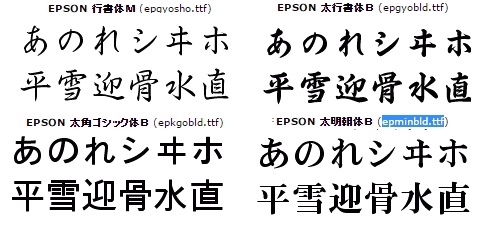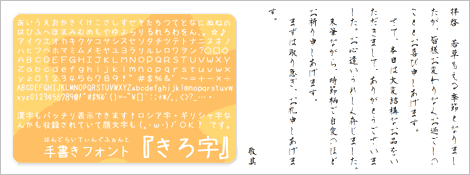
Serif fonts have a classic look to them, and the serifs are also known to aid in the readability of text. Ime supports a compatibility setting in ime settings > [general].
Japanese font download for microsoft word. Download dengxian font pack from official microsoft download center. Additional handwriting japanese fonts are available for download from vector, inc. You can type japanese words in hiragana, katakana and kanji using a keyboard of english or other languages.
Japanese font | dafont.com english français español deutsch italiano português. Japanese fonts microsoft word, free japanese fonts microsoft word software downloads, page 3. Ms mincho is a japanese font that features serifs at the end of its strokes, and can be used for a variety of uses from screen display to publications.
It’s a proportionate font which means that each japanese character is occupying the same amount of space. It has an extensive amount of kanji characters included in the font so you won’t have to really worry about missing characters. Browse by popularity, category or alphabetical listing.
If you’re searching for free serif fonts, check out popular fonts like nightmare pills and playfair display. Premium office apps, extra cloud storage, advanced security, and more—all in one convenient subscription. Because of this, serif fonts are popular fonts for long blocks of text like books, newspapers, and magazine articles.